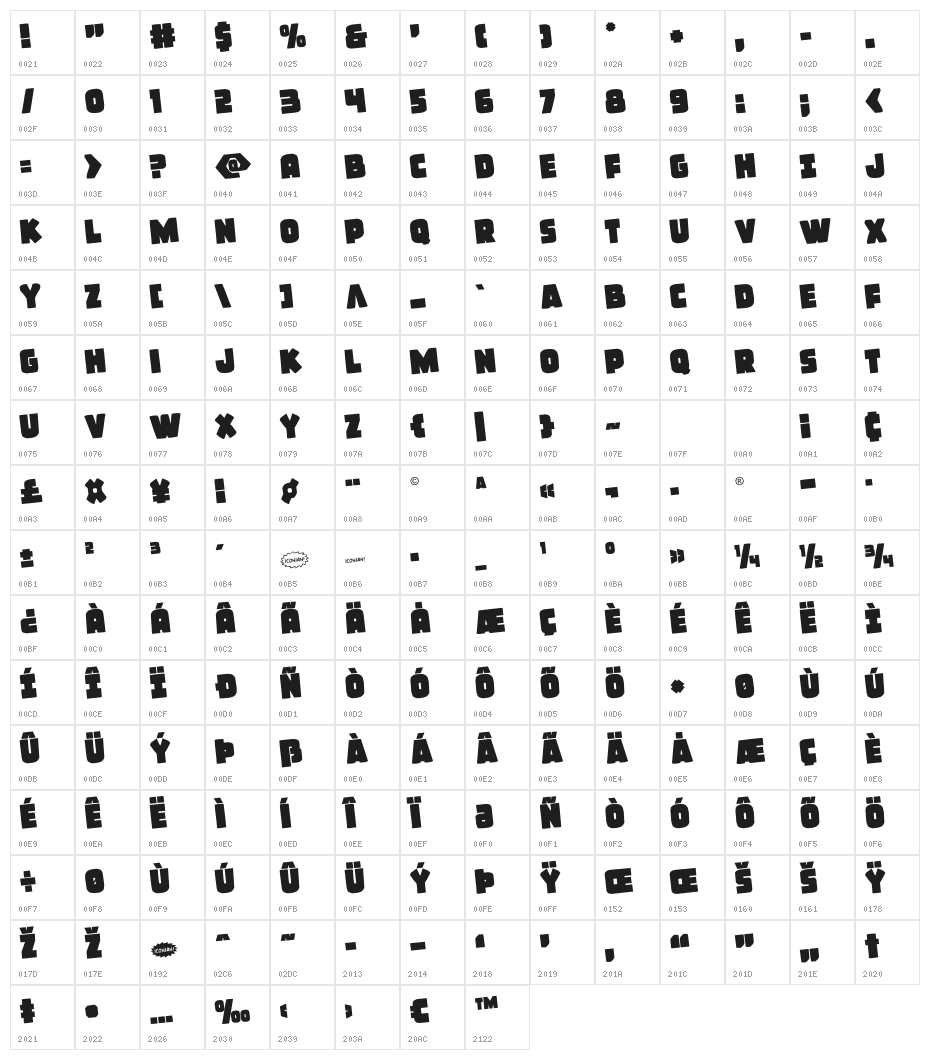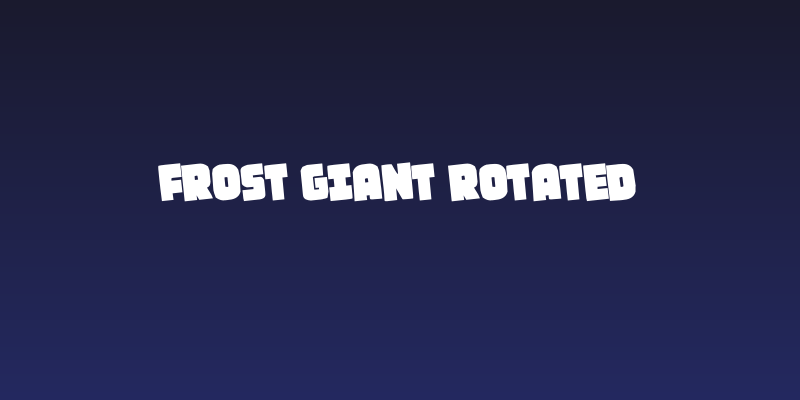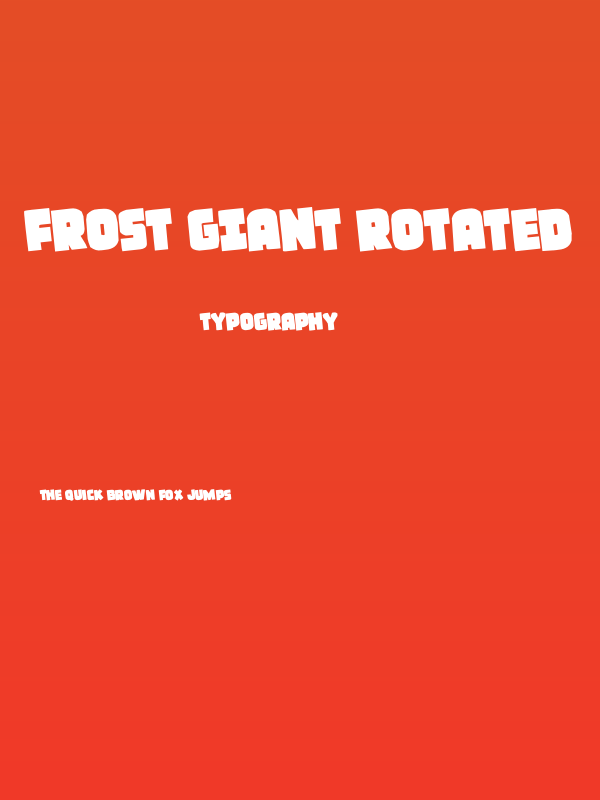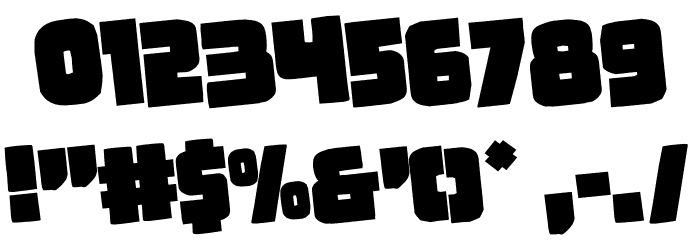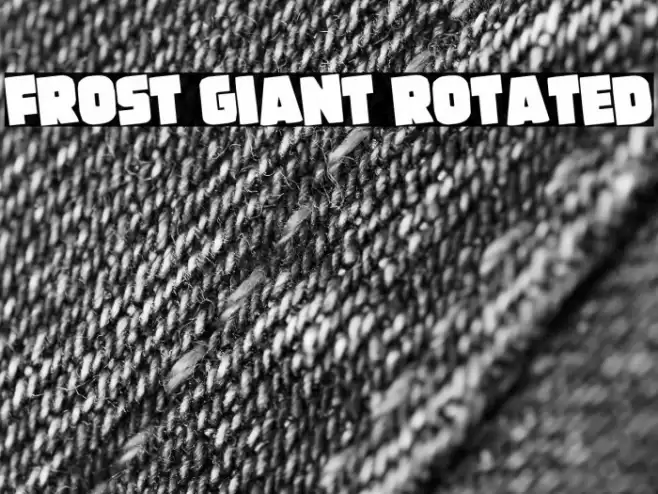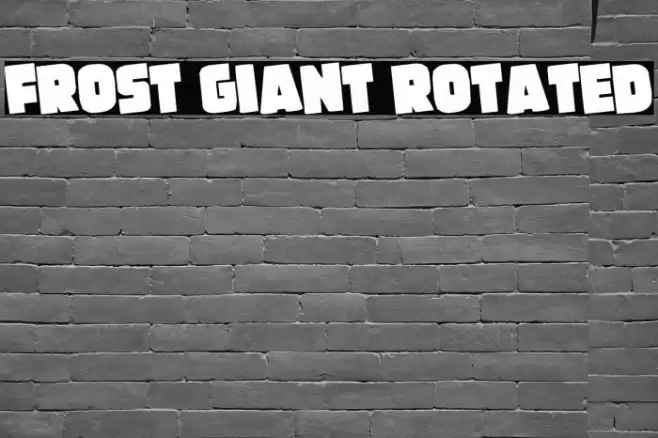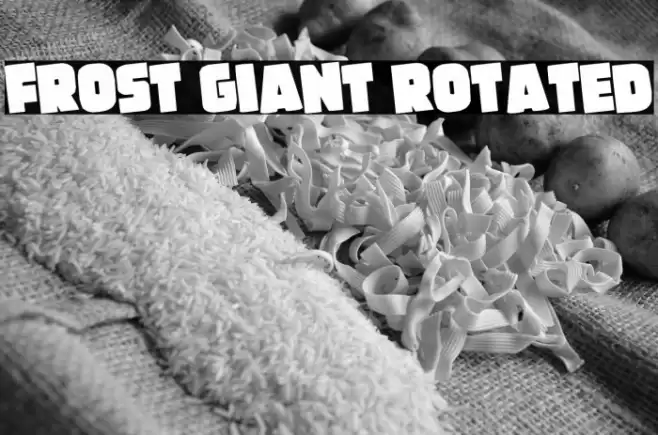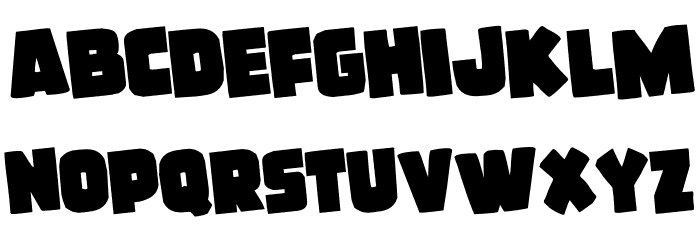
Frost Giant Rotated Font
Frost Giant Rotated Description
This font features bold, blocky characters with a strong presence. Each letter is crafted with a slightly angular design, giving it a modern and edgy feel. The characters are uniformly thick, providing a consistent and powerful look across the entire set. The numbers and special characters maintain this bold style, ensuring a cohesive appearance. The font's design is ideal for making a statement, with its heavy weight and solid structure. Its unique style makes it stand out, perfect for projects that require a strong visual impact.
| Proposed Projects | Ideal for posters, headlines, logos, and branding materials that require a strong, impactful presence. |